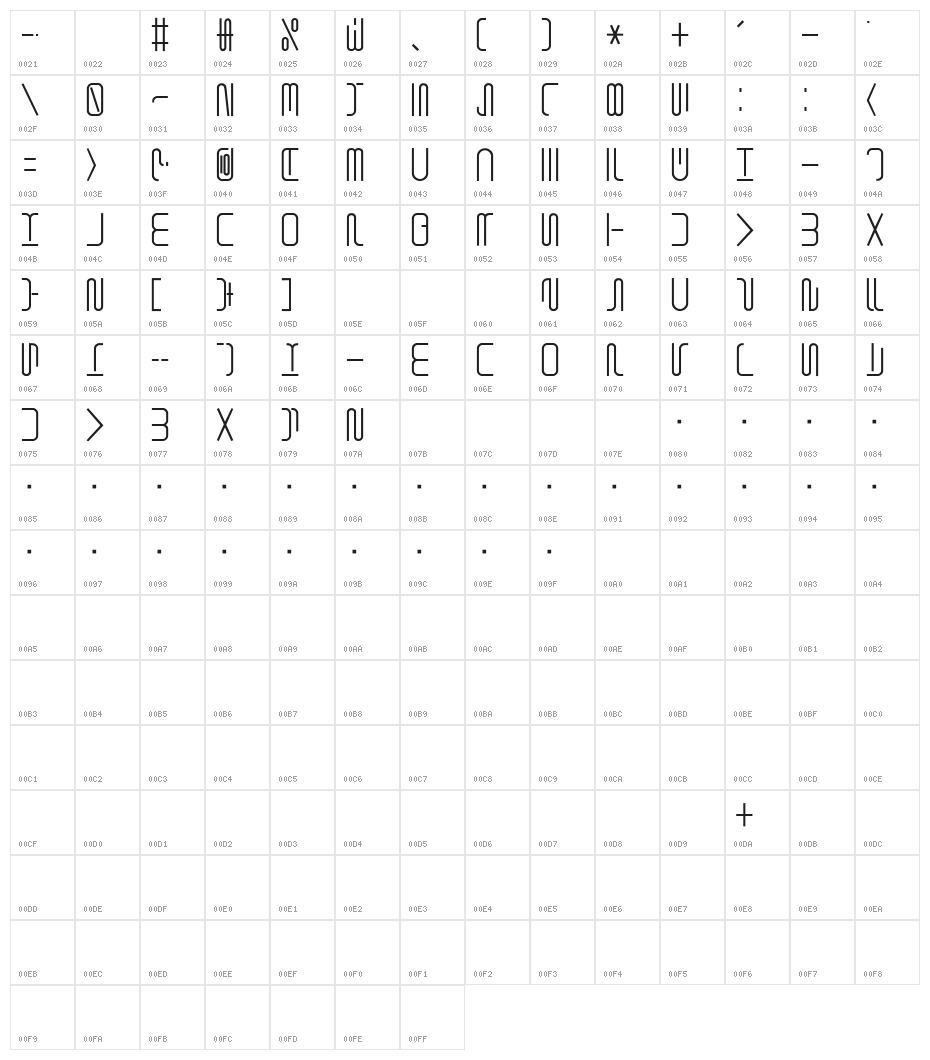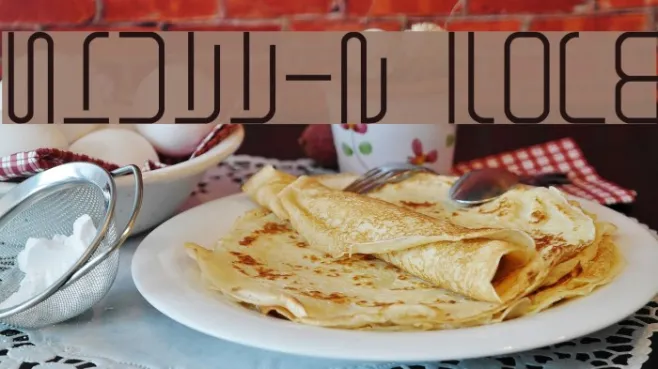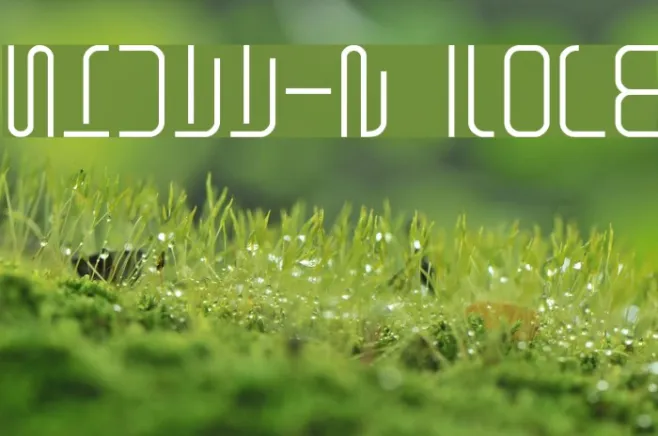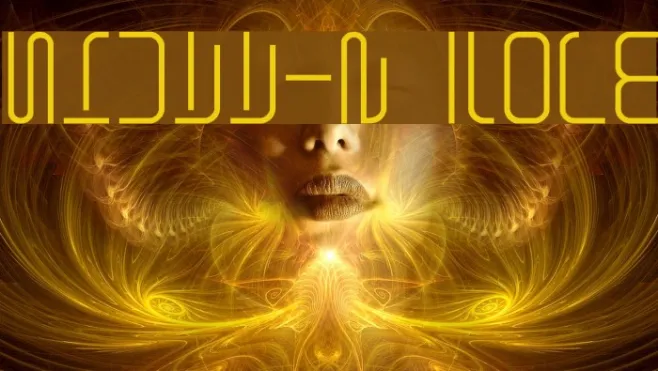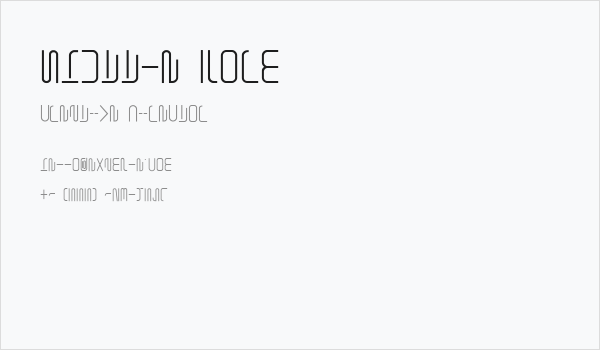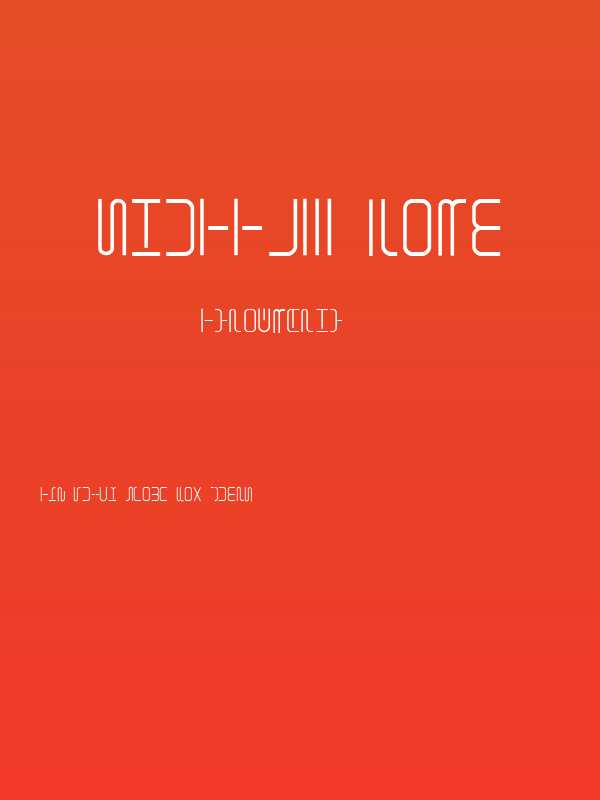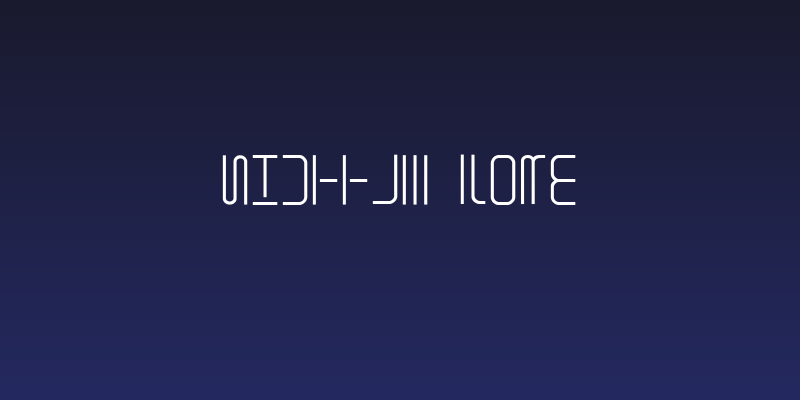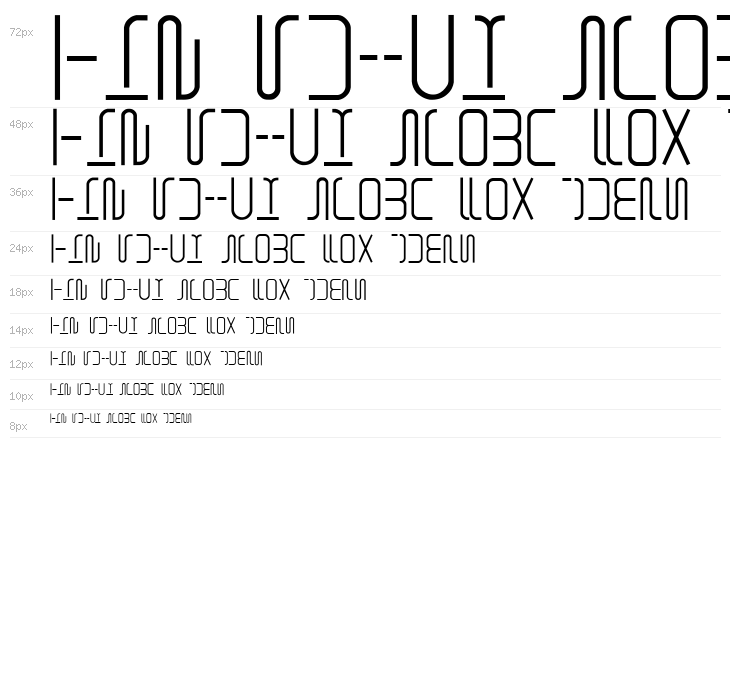
Shuttle Form Font
Shuttle Form Description
This font features a futuristic and geometric design, characterized by its clean lines and uniform stroke width. The letters are constructed with a modern, minimalist aesthetic, emphasizing a sense of technology and innovation. The characters are slightly condensed, contributing to a compact and efficient appearance. The font's unique style is evident in its angular forms and the consistent use of straight lines and curves, creating a harmonious balance between readability and visual interest. The special characters maintain the same design principles, ensuring a cohesive look across all glyphs.
| Proposed Projects | Ideal for technology branding, sci-fi posters, modern web design, and innovative product packaging. |